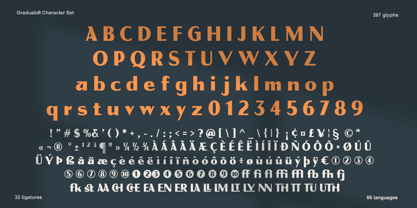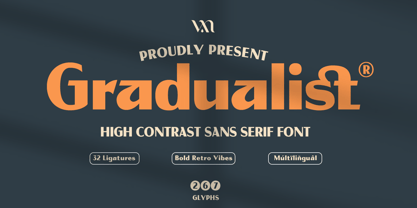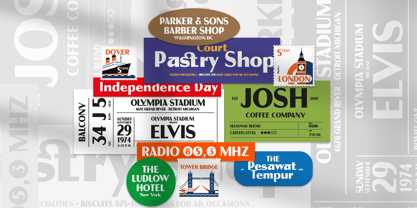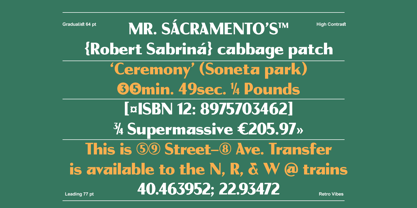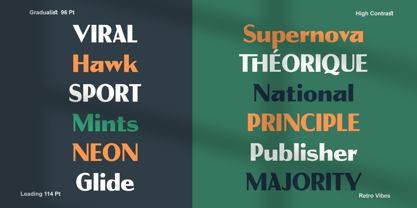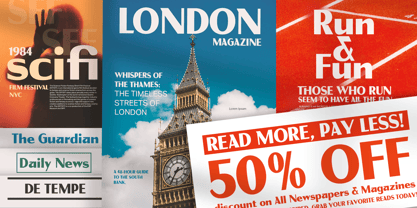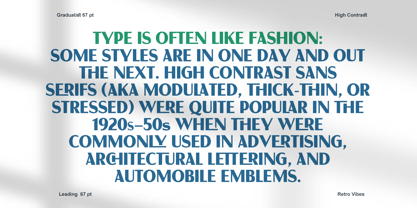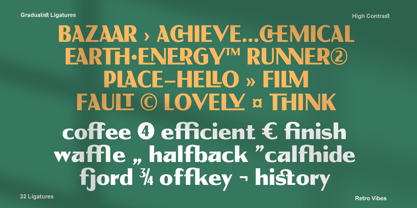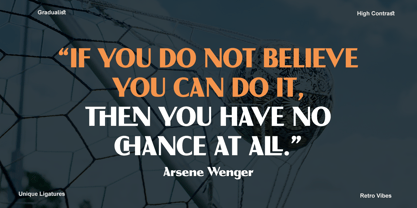
Gradualist
by Yeen Studio
The Gradualist Font Family was designed by Wahyudi Mokoagow and published by Yeen Studio. Gradualist contains 1 styles. More about this family
Gradualist is a high-contrast display sans serif with bold upright shapes, sharp modulation, and a retro editorial feel. Its letterforms combine heavy vertical weight with thin cuts, angled terminals, and compact proportions, giving titles a strong vintage character. The capital letter set feels sturdy and architectural, while the lowercase letters add distinctive shapes, ligatures, fractions, ordinals, and tight spacing. Legibility is strongest at large sizes, especially on magazine covers, posters, labels, packaging, signage, badges, sports graphics, and nostalgic branding. This font is well-suited for short titles and display typography where rhythm, contrast, and retro structure become the main visual focus.
Designers: Wahyudi Mokoagow
Foundry: Yeen Studio